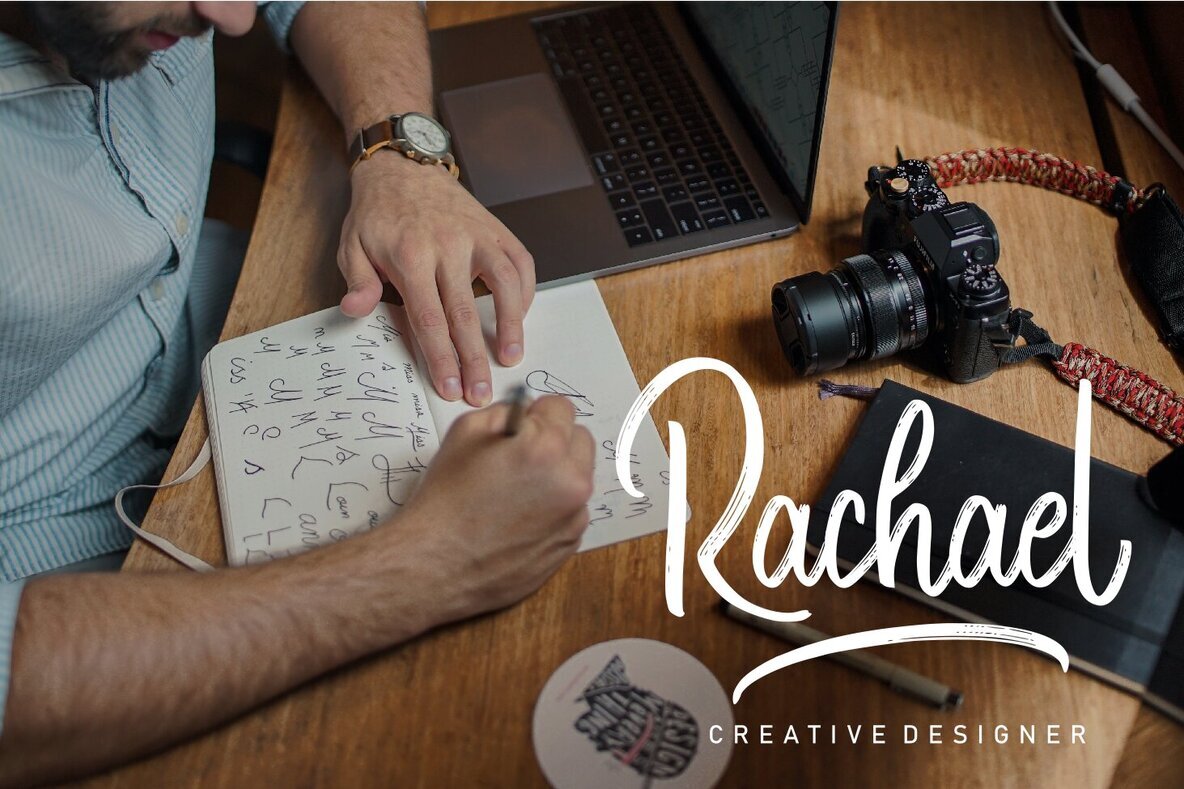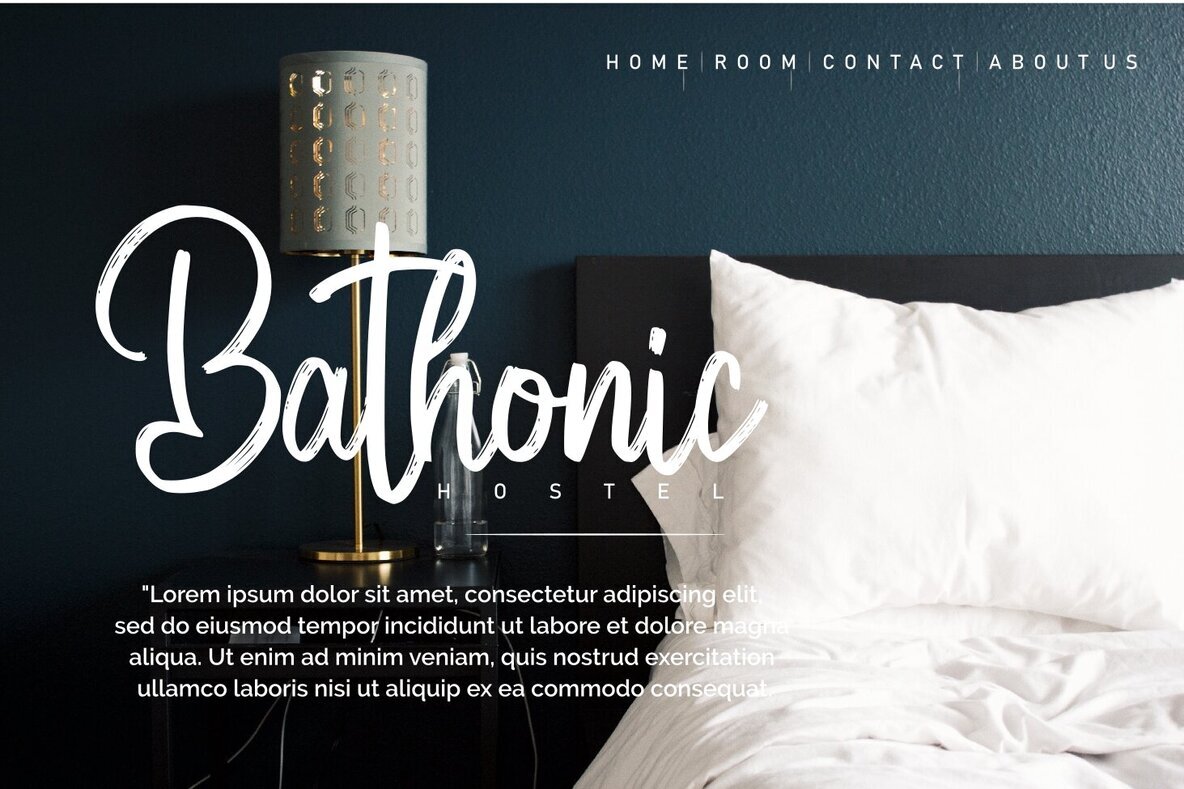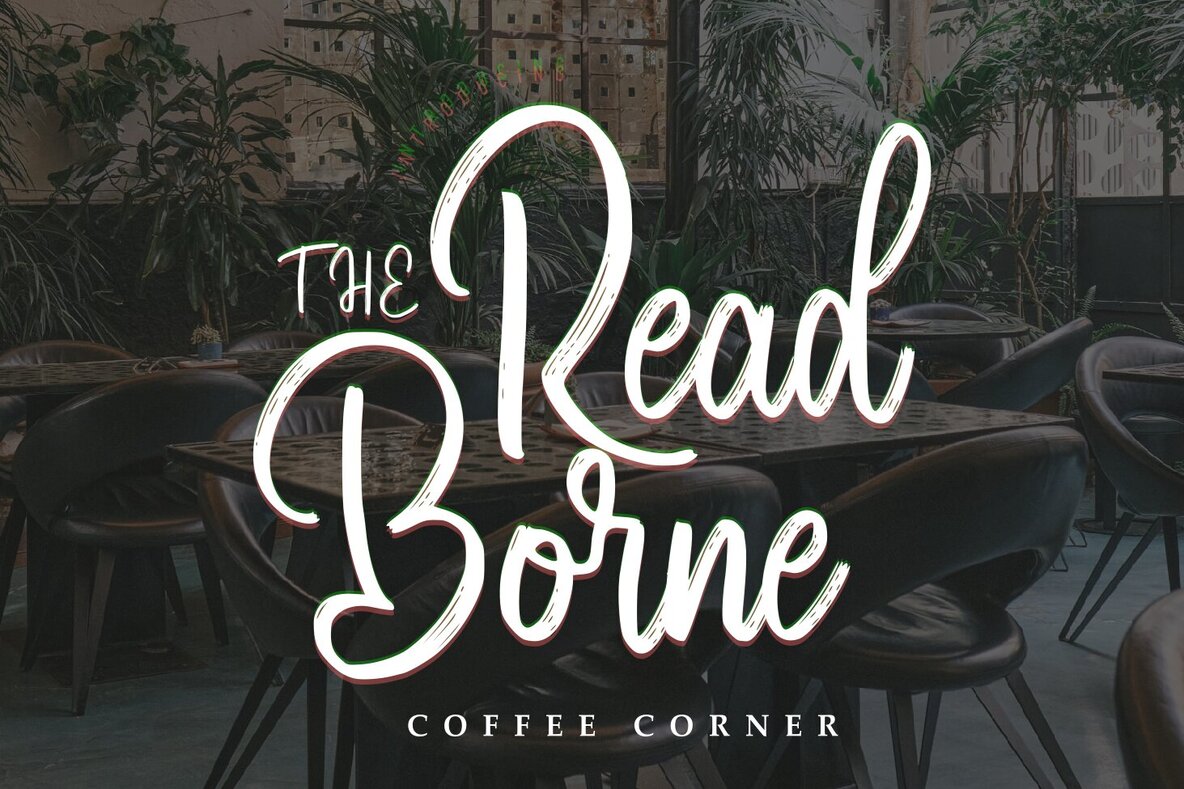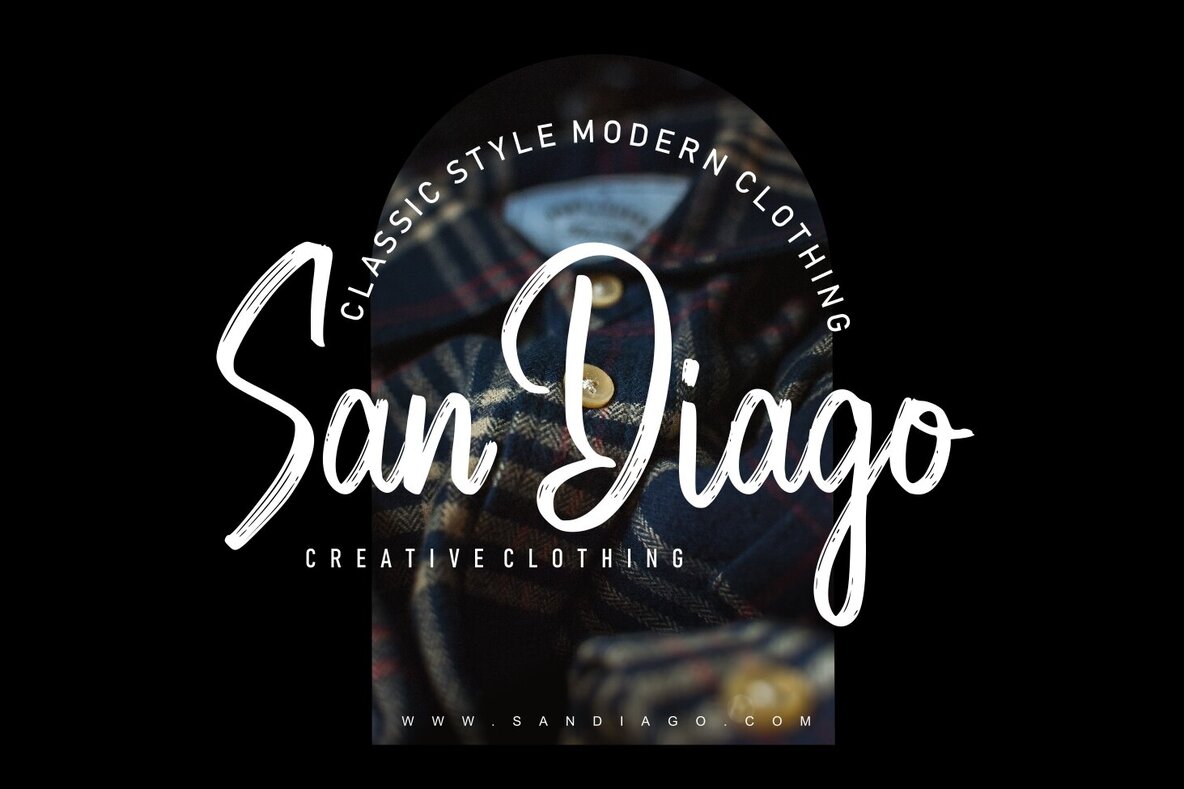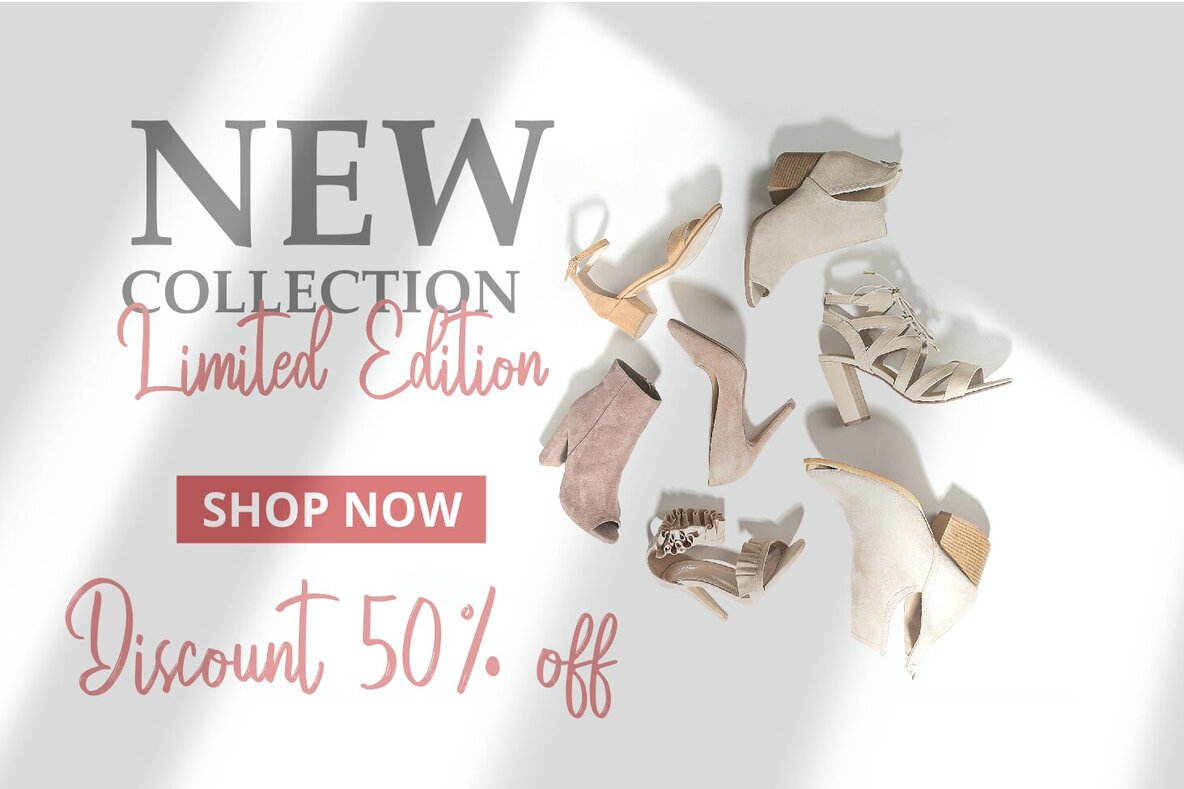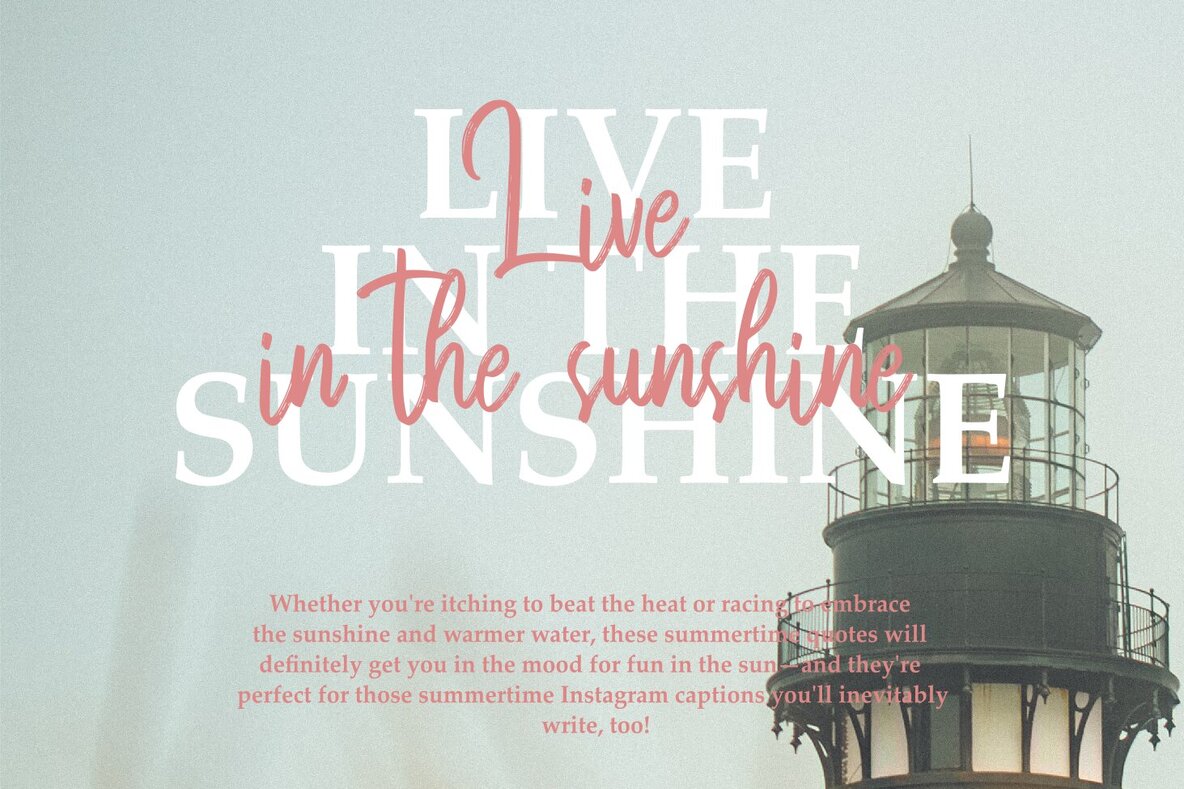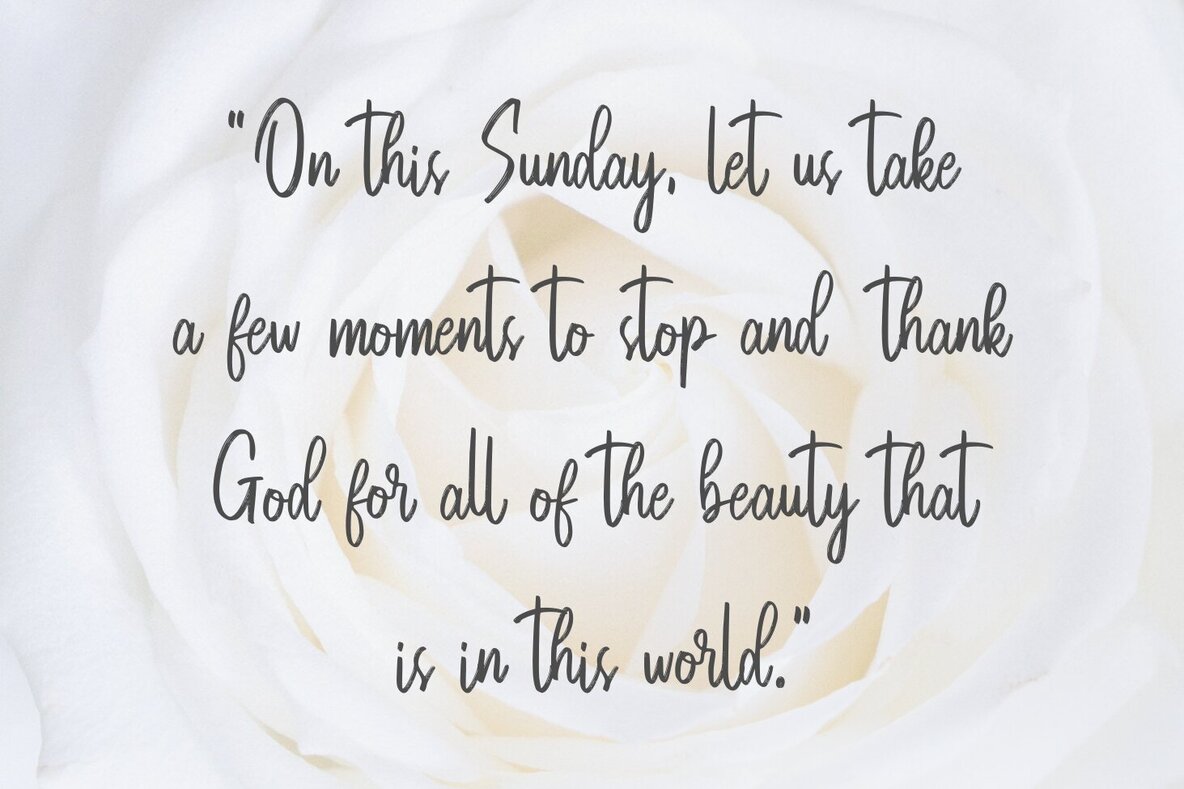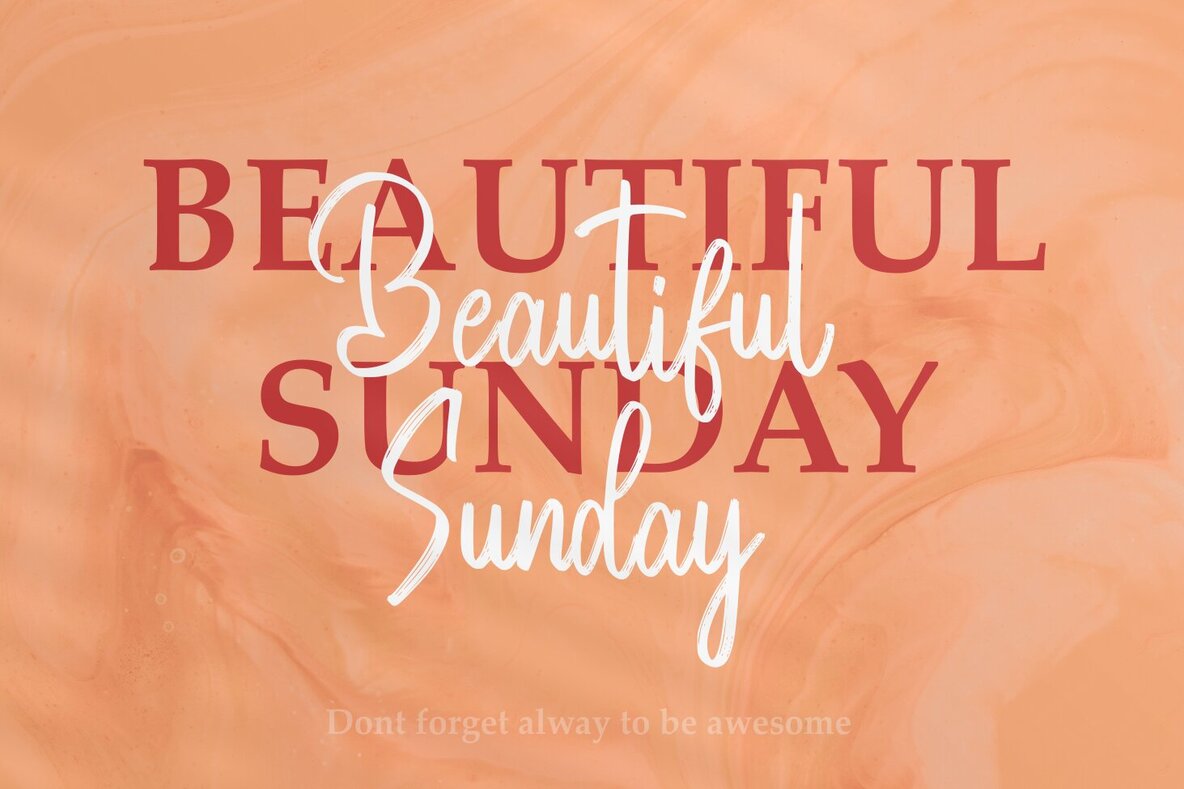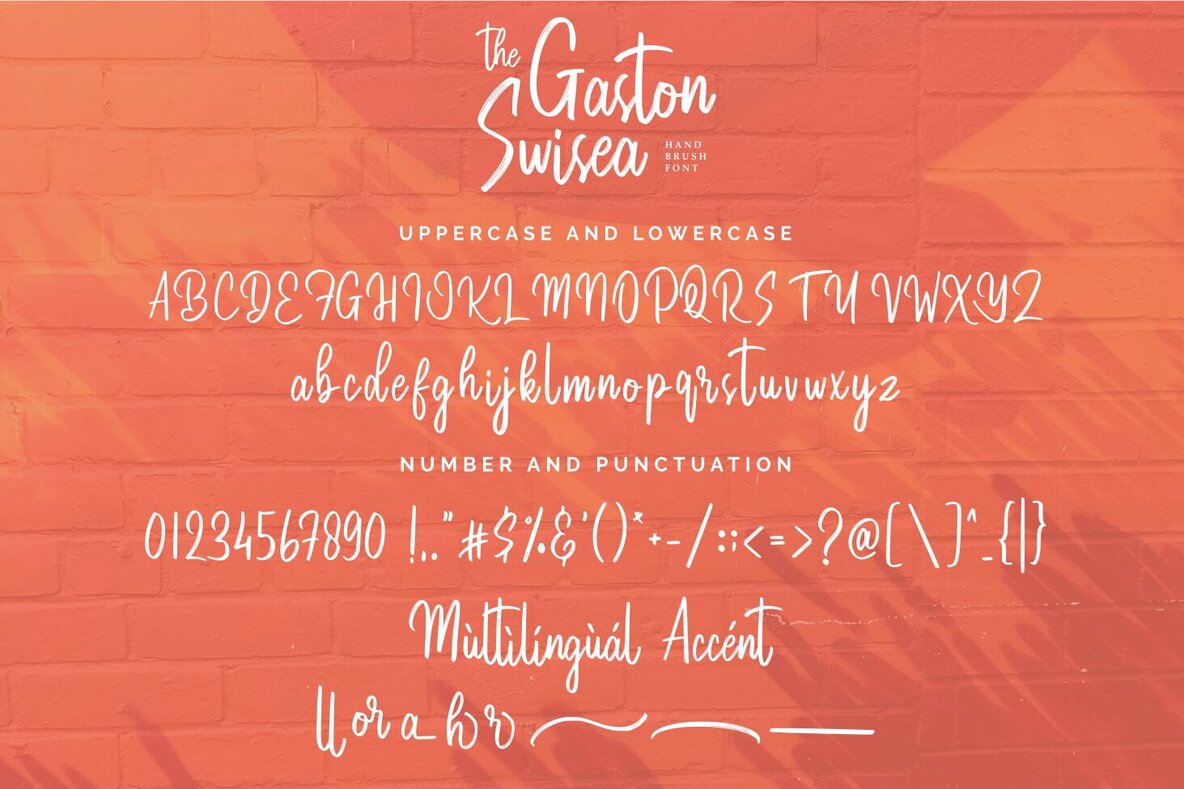
The Gaston Swisea Font
The Gaston Swisea
The Gaston Swisea is a handbrush font distinguished by its robust texture. Crafted by handwriting directly onto paper with a coarse brush, it delivers a strong, consistent appearance. Ideal for an array of projects including stationery invitations, social media graphics, logos, weddings, and branding. This font seamlessly enhances your creative design endeavors. We hope you find The Gaston Swisea font inspiring. Your feedback and thoughts are welcome. Thank you for choosing our font. We are pleased to assist you!The Gaston Swisea: Dynamic Handbrush Font with Texture